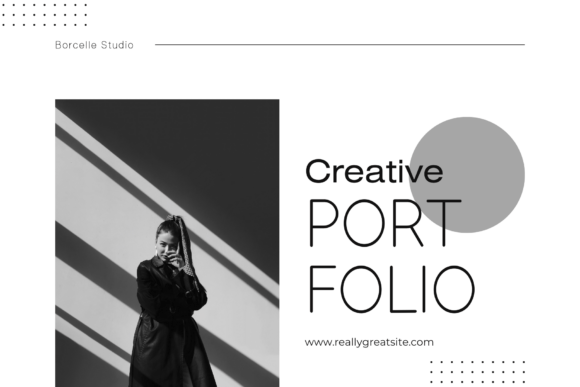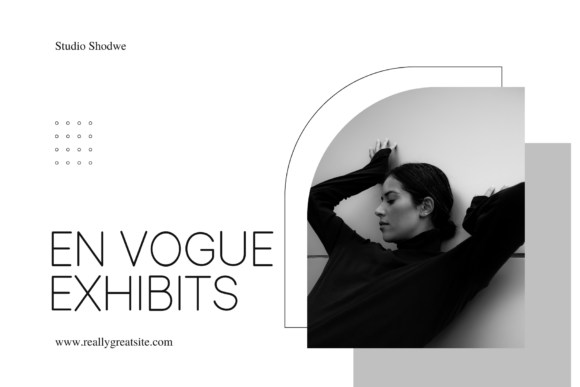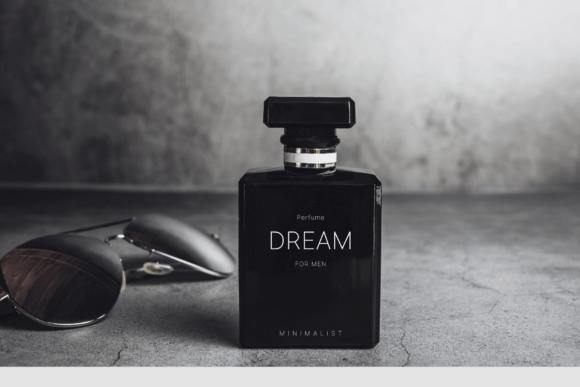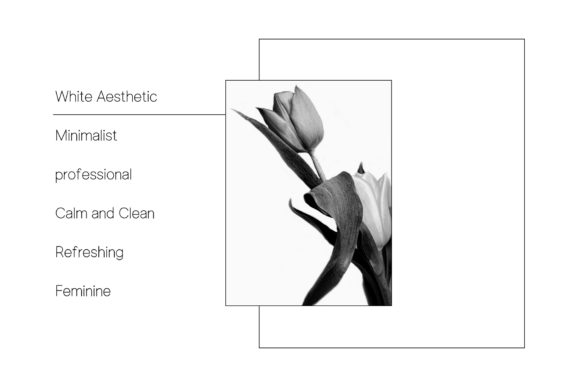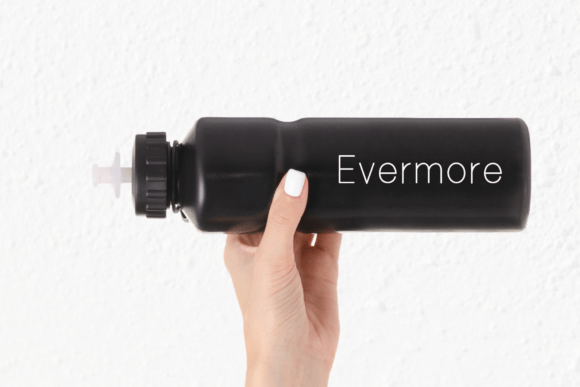
Introducing Classy Font: Elevate Your Designs with Elegance and Sophistication
In the world of design, typography plays a crucial role in conveying the tone and aesthetic of a project. A well-chosen font can make all the difference in creating a lasting impression on your audience. If you’re looking for a font that exudes professionalism, modernity, and elegance, look no further than Classy Font. This simple and neat sans serif font is designed to elevate your creative projects with its clean and simple lines, making it perfect for a wide range of applications.
What is Classy Font?
Classy Font is a sans serif font that boasts a sleek and sophisticated design. Its clean lines and minimalist aesthetic make it an ideal choice for designers and crafters who want to add a touch of elegance to their work. Whether you’re creating a logo, designing a digital project, or working on a print publication, Classy Font is the perfect choice.
Key Features of Classy Font
- Clean and Simple Lines: Classy Font features clean and simple lines that give it a modern and professional look.
- Sans Serif Design: The font’s sans serif design makes it easy to read and perfect for digital and print applications.
- Elegant and Sophisticated: Classy Font exudes elegance and sophistication, making it perfect for high-end designs.
- Versatile: This font can be used for a wide range of projects, from logos and digital projects to banners, posters, and publications.
Use Cases for Classy Font
Classy Font is a versatile font that can be used for various creative projects. Here are some of the many use cases for this elegant font:
- Craft Design: Add a touch of elegance to your craft designs with Classy Font.
- Logo Design: Create a professional and modern logo with Classy Font.
- Digital Projects: Use Classy Font for your digital projects, such as website headers, social media graphics, and more.
- Banners and Posters: Create eye-catching banners and posters with Classy Font.
- Product Fashion: Add a touch of sophistication to your product fashion designs with Classy Font.
- Packaging: Use Classy Font for packaging designs to give your products a professional and modern look.
- Book Covers: Create stunning book covers with Classy Font.
- Magazines: Use Classy Font for your magazine designs to add a touch of elegance.
- Headlines: Use Classy Font for headlines to make them stand out.
- Wedding Invitation Publications: Add a touch of sophistication to your wedding invitation publications with Classy Font.
Why Choose Classy Font?
With so many fonts available, why choose Classy Font? Here are a few reasons why Classy Font stands out:
- Unique and Professional: Classy Font is a unique and professional font that will give your designs a distinctive look.
- Easily Readable: The font’s clean and simple design makes it easily readable, even at small sizes.
- Highly Versatile: Classy Font can be used for a wide range of projects, making it a great addition to your font library.
In conclusion, Classy Font is a simple and neat sans serif font that is perfect for designers and crafters who want to add a touch of elegance and sophistication to their work. With its clean and simple lines, Classy Font is highly versatile and can be used for a wide range of creative projects. Whether you’re creating a logo, designing a digital project, or working on a print publication, Classy Font is the perfect choice. So why wait? Download Classy Font today and elevate your designs with elegance and sophistication.